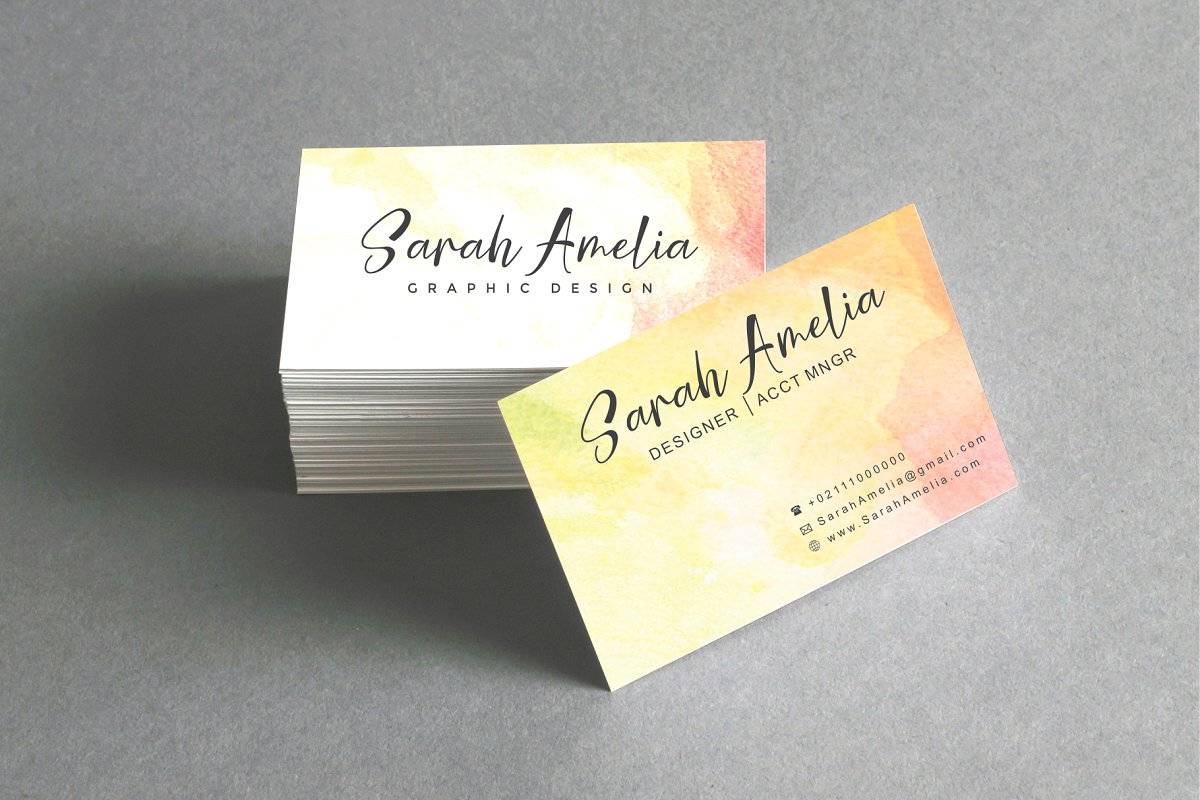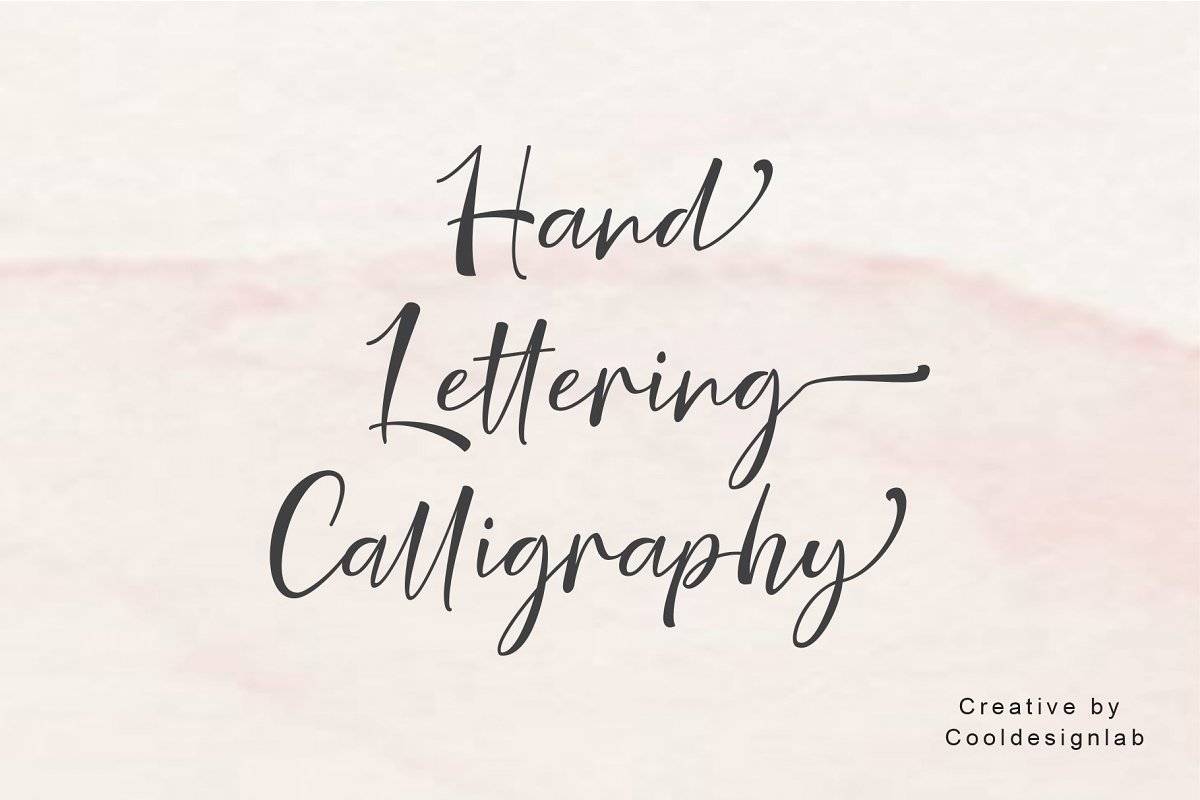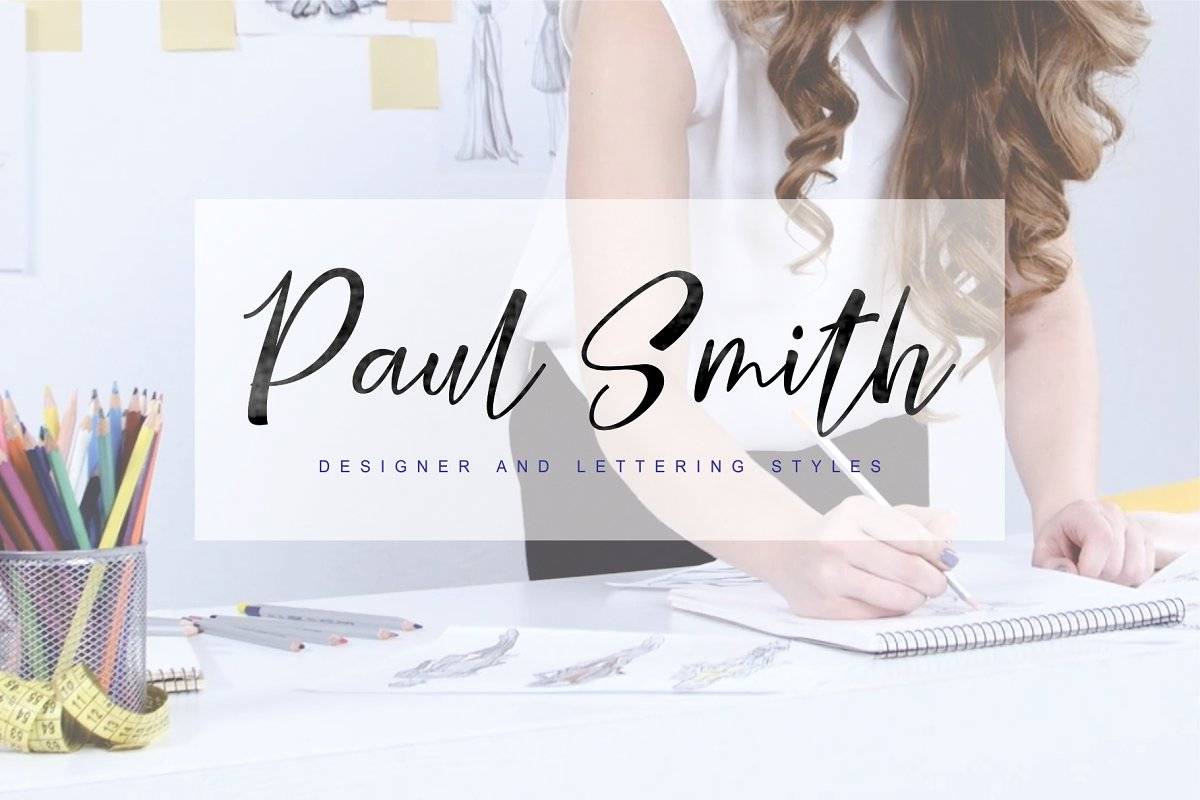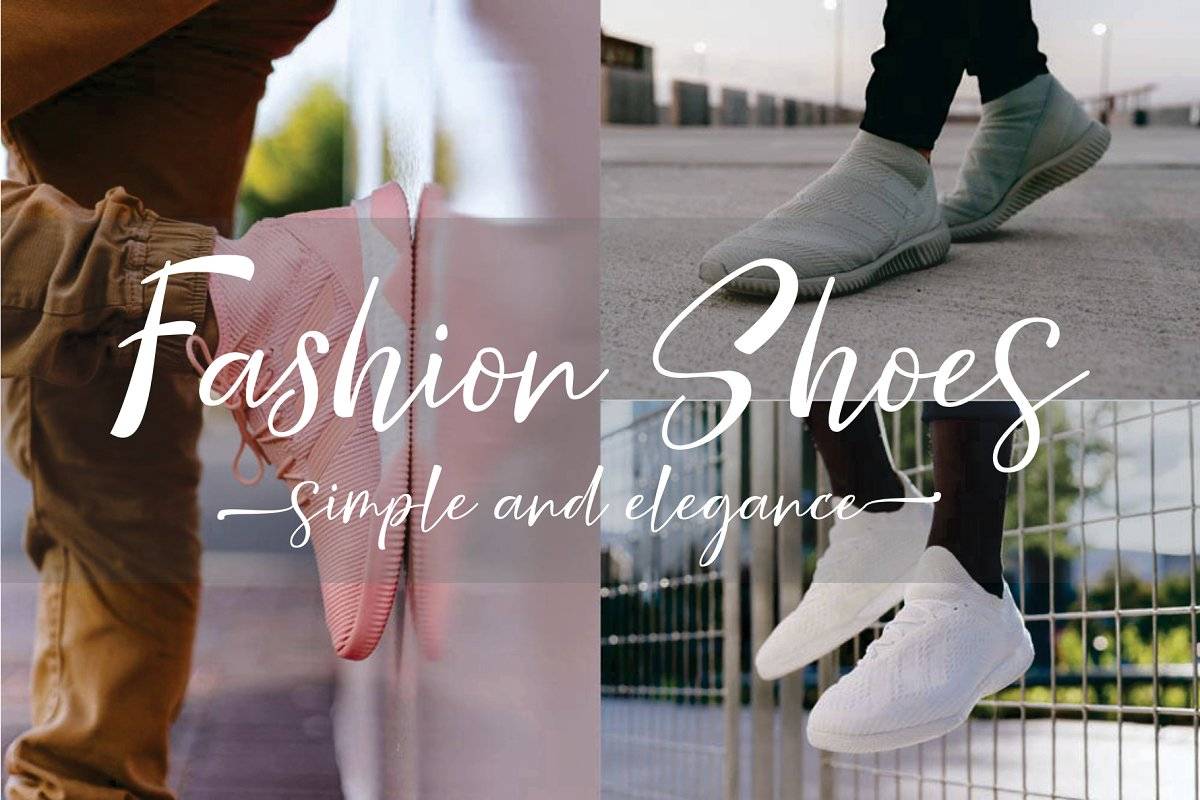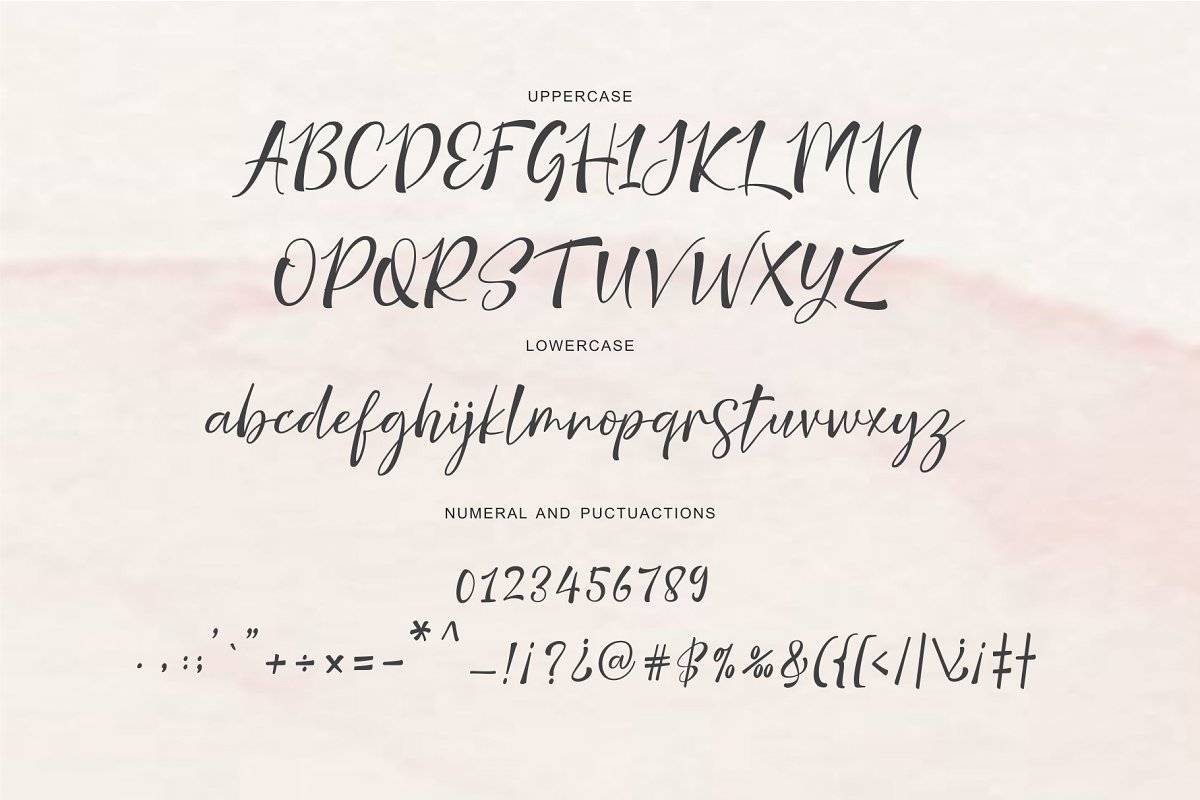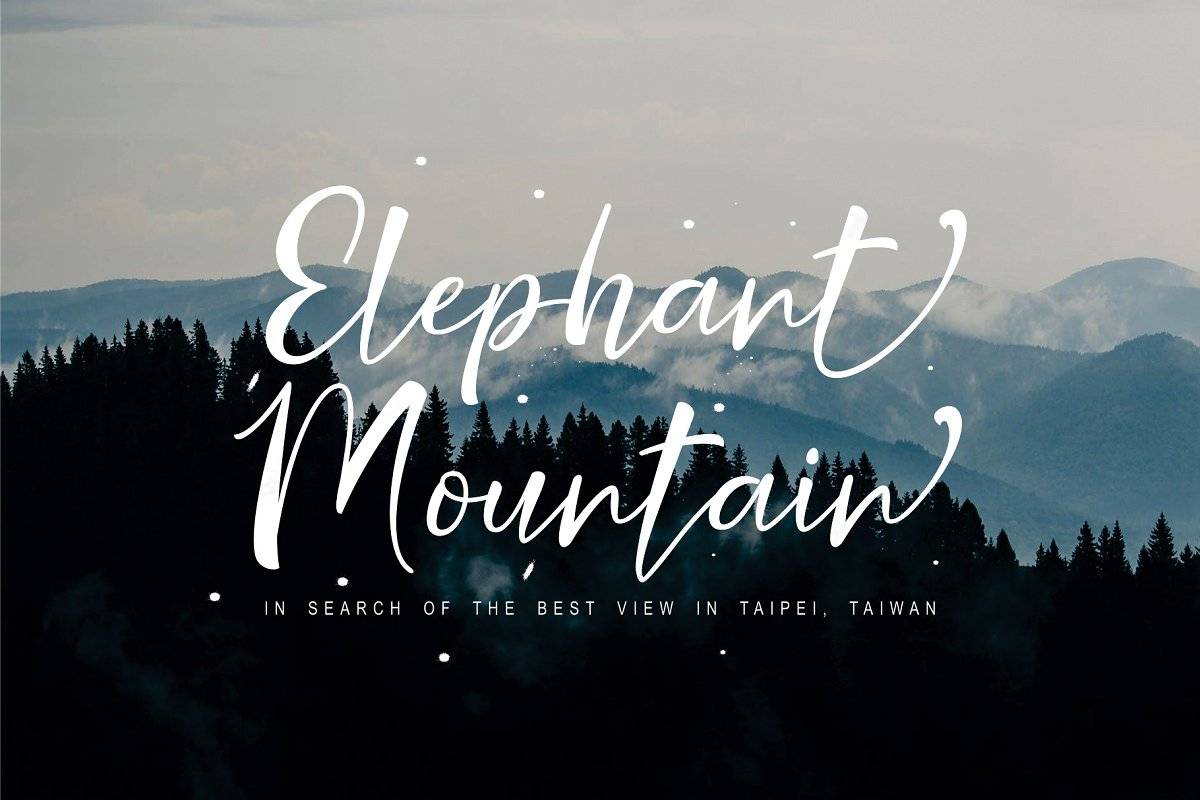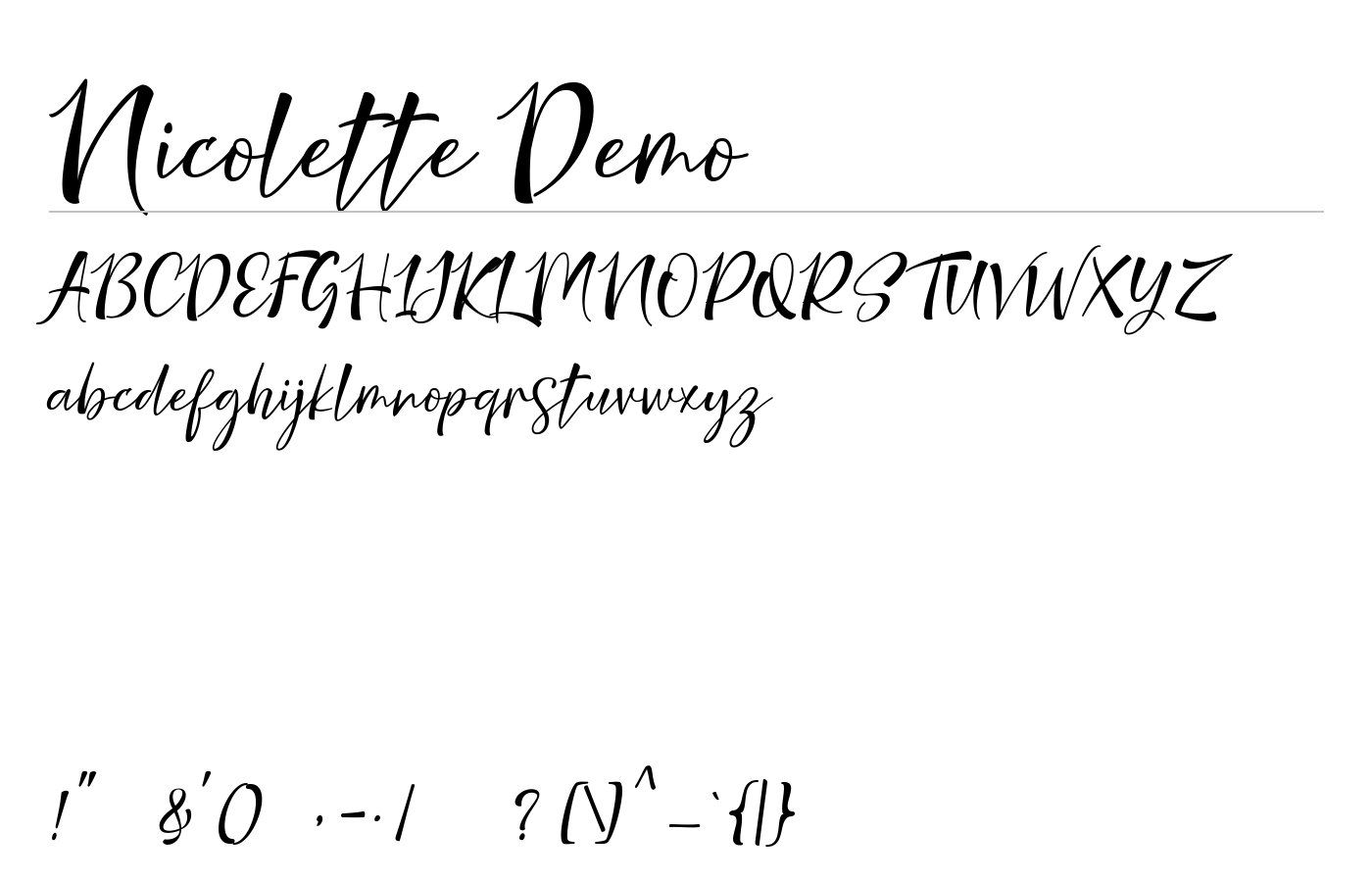
Nicolette Script Demo is an elegant, modern script font with a handwritten feel. Its smooth, flowing strokes and stylish letterforms give it a graceful and sophisticated personality, making it perfect for branding, invitations, and fashion-related designs that need a touch of luxury and charm. This font works beautifully in headlines and logos where a refined, personal touch is desired.
Nicolette Script Demo
About Nicolette Script Demo